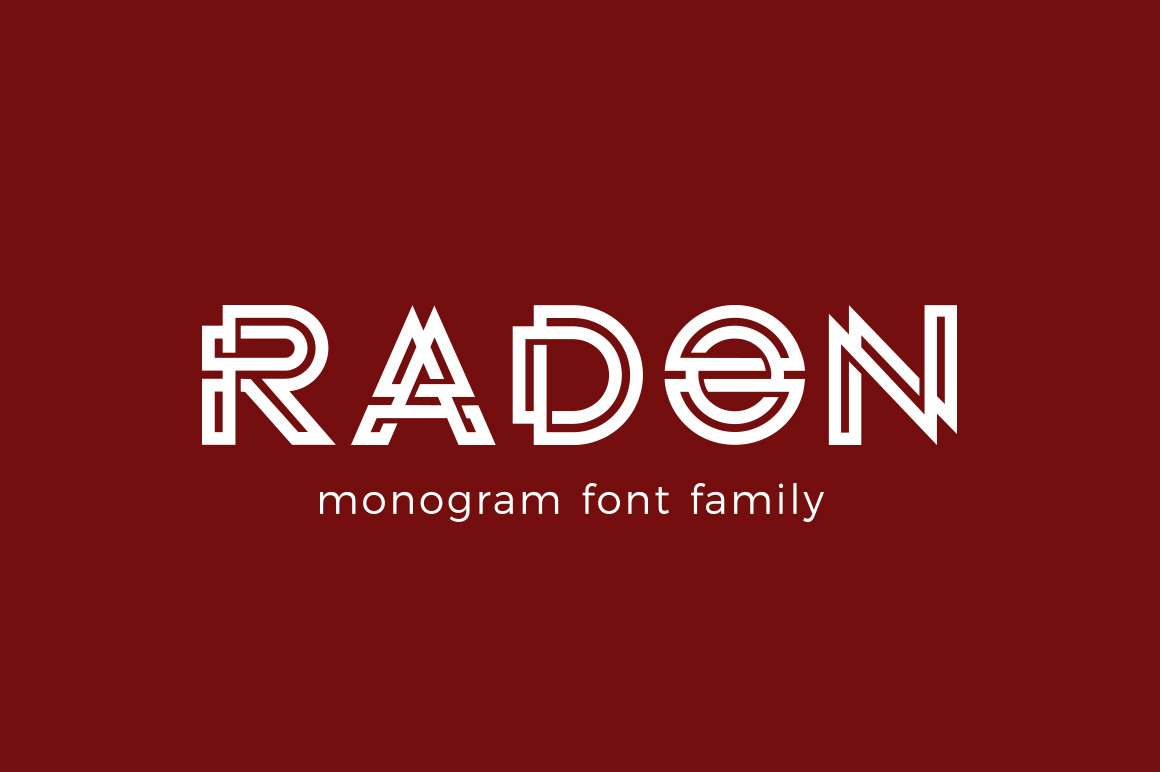
RADON monogram logo FONT
RADON Monogram Logo FONT is perfect for luxury brand monograms, exclusive club identities, premium personal branding, high-end corporate logos, sophisticated wedding stationery, elite membership organizations, personalized luxury goods, and distinguished professional emblems.
What makes RADON Monogram Logo FONT exciting is its powerfully distinctive character that transforms simple initials into commanding brand statements through precisely engineered letterforms designed specifically for creating memorable monogram logos. The font features strong geometric structures with sophisticated details that ensure every monogram carries weight and authority while maintaining the refined elegance essential for luxury applications. Its monogram-optimized design and premium aesthetic make it perfect for brands that need to create instantly recognizable identity marks that communicate exclusivity, prestige, and the kind of sophisticated branding that establishes immediate market distinction and lasting brand recognition.
RADON Monogram Logo FONT family includes various powerful monogram weights and styles specifically designed for logo creation, often featuring interlocking alternates and luxury decorative elements. The family may include premium symbols, sophisticated ornamental features, and elegant connecting elements that enhance the font's monogram capabilities, providing designers with comprehensive options for creating distinctive logo compositions that establish powerful brand identities and memorable visual marks.
This distinctively powerful typeface has gained recognition among luxury brands and premium identity designers seeking authentic monogram typography solutions that create commanding brand marks and sophisticated visual identities. RADON Monogram Logo FONT Free Download provides an excellent opportunity to brand with this premium monogram font before investment. The font's character set includes luxury symbols and monogram-specific glyphs that work perfectly for high-end branding and identity design industry applications. Whether you're designing for luxury fashion houses, exclusive private clubs, or premium personal brands, RADON Monogram Logo FONT delivers the sophisticated distinction your project demands. Its versatile nature makes it suitable for various luxury applications including private banking, exclusive memberships, high-end consulting firms, and prestigious lifestyle brands, ensuring your typography choices communicate premium quality and exclusive sophistication while creating memorable brand experiences that establish lasting market presence through its distinctively powerful and authentically premium monogram visual character.